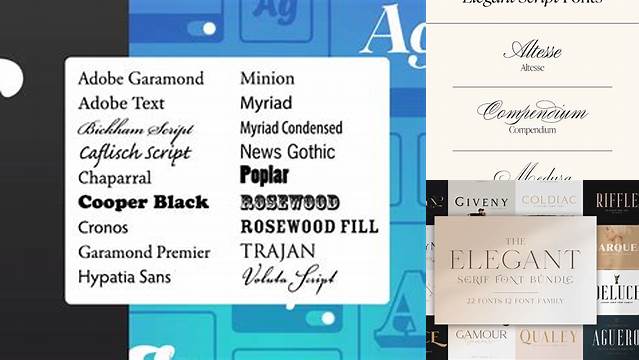
Elegant Fonts: A Guide To Adobe Fonts
Choosing the right font can make or break your design. When you're aiming for sophistication and class, elegant fonts are the way to go. And where better to find a vast collection of high-quality typefaces than Adobe Fonts? In this article, guys, we'll dive deep into the world of elegant fonts available on Adobe Fonts, exploring different styles, pairings, and how to use them effectively in your projects.
1. What Makes a Font Elegant?
Before we jump into specific examples, let's define what exactly makes a font elegant. Generally, elegant fonts possess a certain refinement and grace. They often feature delicate lines, graceful curves, and a sense of timelessness. Think about the fonts you see in high-end fashion magazines, luxury branding, or classic literature—those are the kinds of fonts we're talking about. These fonts often convey sophistication, quality, and a touch of luxury. Understanding these characteristics will help you better identify and select the perfect elegant font for your design needs.
2. Serif Fonts for Timeless Elegance
Serif fonts are often the first choice when seeking elegant fonts. Their small, decorative strokes (serifs) at the ends of letterforms add a classic and formal touch. Think Times New Roman or Garamond, but the world of serif fonts is so much broader! There are countless variations, each with its own unique personality. From the sharp, authoritative serifs of Didot to the softer, more humanist serifs of Caslon, you'll find a serif font to match almost any project that requires elegance. Using serif fonts strategically can elevate the perceived value and sophistication of your design, making them a staple for brands and projects aiming for a classic appeal. Using them in headings can draw the eye, while body text in a well-chosen serif can enhance readability and overall aesthetic appeal.
3. Sans-Serif Fonts: Modern Elegance
Sans-serif fonts, without serifs, offer a different kind of elegance: a more modern, minimalist aesthetic. While they might not have the traditional formality of serif fonts, sans-serif fonts can be incredibly sophisticated in their simplicity. Think clean lines, balanced proportions, and a sense of understated chic. Fonts like Helvetica, Futura, and Montserrat are all excellent examples of sans-serif fonts that can bring an element of modern elegance to your designs. The key here is balance. Pairing a clean sans-serif with a more ornate element can create a striking contrast that speaks volumes about your design's intent. The versatility of sans-serif fonts means they can be used across a wide array of projects, from web design to print, offering a seamless blend of functionality and style.
4. Script Fonts: The Flourish of Elegance
If you're looking for a font that exudes personality and flair, script fonts are your go-to choice. These fonts mimic handwriting, often featuring flowing strokes and decorative flourishes. However, with great power comes great responsibility! Script fonts can be tricky to use; overuse them, and your design can look cluttered or even illegible. But when used sparingly and thoughtfully, script fonts can add a touch of romance, luxury, and bespoke quality. Imagine using a script font for a wedding invitation or a high-end cosmetics brand – the effect can be stunning. The key to successfully integrating script fonts is to balance them with simpler fonts for readability and to ensure that the script's style complements the overall design aesthetic.
5. Display Fonts: Unique and Elegant Choices
Display fonts are designed to be eye-catching and make a statement. They often have unique and unusual characteristics, making them perfect for headlines, logos, and other prominent design elements. While not all display fonts are elegant, many offer a distinctive twist on traditional elegance. Think bold, geometric sans-serifs or serifs with exaggerated features. These fonts can add a touch of drama and personality to your designs while still maintaining an air of sophistication. It's crucial to consider the context when using display fonts; their bold nature means they are best reserved for prominent features in a design, where their unique characteristics can truly shine without overwhelming the overall composition.
6. Pairing Elegant Fonts for Impact
Choosing a single elegant font is only half the battle. To truly create a stunning design, you need to consider font pairings. A well-chosen font pairing can create visual harmony and hierarchy, making your design more engaging and readable. The classic rule of thumb is to pair a serif font with a sans-serif font, but don't be afraid to break the rules! Experiment with different combinations until you find something that resonates with your project's goals and aesthetic. For instance, a bold serif headline paired with a clean sans-serif body text can create a striking visual contrast while maintaining readability. The art of font pairing is about creating balance and visual interest, ensuring that the fonts complement each other without competing for attention.
7. Adobe Fonts: Your Elegant Font Library
Adobe Fonts is a treasure trove for designers seeking elegant fonts. With a vast library of high-quality typefaces, you're sure to find the perfect font for your project. The best part? If you're an Adobe Creative Cloud subscriber, you already have access to these fonts! Simply activate them within the Creative Cloud app, and they'll be available in all your design applications. This seamless integration makes Adobe Fonts an incredibly convenient and valuable resource. The extensive collection means you can explore a variety of styles and find unique fonts that perfectly align with your design vision, making Adobe Fonts an indispensable tool for any designer.
8. Elegant Serif Font Options on Adobe Fonts
Adobe Fonts boasts a stunning selection of serif fonts, perfect for adding a touch of timeless elegance to your designs. From classic typefaces like Garamond Premier Pro and Adobe Caslon Pro to more contemporary options like Playfair Display and Lora, the possibilities are endless. Each serif font has its unique characteristics, making it suitable for different applications. For instance, a font like Garamond might be ideal for body text in a book, while Playfair Display could be perfect for a headline or logo. The depth and breadth of the serif font collection on Adobe Fonts ensure that you can find the perfect typeface to convey sophistication and formality in your projects.
9. Sophisticated Sans-Serif Choices
For a modern and clean aesthetic, Adobe Fonts offers a wide range of sophisticated sans-serif options. Fonts like Montserrat, Open Sans, and Lato provide excellent readability and versatility, making them suitable for both web and print projects. These fonts are characterized by their clean lines and balanced letterforms, conveying a sense of contemporary elegance. They work particularly well in digital environments, where clarity and legibility are paramount. The beauty of sans-serif fonts lies in their simplicity, allowing them to be seamlessly integrated into various design styles, from minimalist to corporate, ensuring a polished and professional look.
10. Elegant Script Fonts on Adobe Fonts
Adobe Fonts has a beautiful collection of script fonts for adding a touch of personality and flair. Whether you're looking for a formal calligraphy style or a more casual handwritten feel, you'll find a script font to suit your needs. However, as we mentioned earlier, script fonts should be used judiciously. Think about using them for headings, invitations, or to add a personal touch to your branding. Some popular choices include Mrs Eaves, Zapfino, and Pacifico. When using script fonts, it's crucial to consider legibility and ensure that they complement the overall design without overpowering it; a subtle touch of script can often make the most significant impact.
11. Elegant Display Fonts to Make a Statement
When you need a font that commands attention, Adobe Fonts' selection of display fonts is your go-to. These fonts are designed to be eye-catching and unique, making them ideal for headlines, logos, and other prominent design elements. While elegance might not be the first word that comes to mind when you think of display fonts, many options can add a touch of sophistication with a twist. Fonts like Bebas Neue, Oswald, and Raleway offer a modern, geometric elegance that works well in various contexts. Display fonts are all about making an impact, and Adobe Fonts offers a diverse range of styles to ensure your message is conveyed with both clarity and flair.
12. Font Weights and Styles for Elegance
The elegance of a font isn't just about its typeface; it's also about how you use its various weights and styles. A single font family often includes multiple weights (light, regular, bold, etc.) and styles (italic, condensed, etc.). Using these variations effectively can add depth and sophistication to your designs. For example, a light weight might convey delicacy, while a bold weight adds emphasis. Using italic styles can provide contrast and visual interest. Experimenting with font weights and styles is key to unlocking the full potential of an elegant font, allowing you to create a nuanced and impactful visual hierarchy.
13. Kerning and Letter Spacing for Perfect Elegance
Kerning and letter spacing are often overlooked, but they play a crucial role in the overall elegance of your typography. Kerning refers to the space between individual letters, while letter spacing refers to the overall space between all letters in a word or phrase. Adjusting these settings can significantly impact readability and visual appeal. Too little space, and your text will look cramped; too much space, and it will appear disjointed. Fine-tuning kerning and letter spacing is like the finishing touch on a masterpiece, ensuring that your text is not only beautiful but also effortlessly readable.
14. Line Height and Readability
Line height, or leading, is the vertical space between lines of text. Proper line height is crucial for readability, especially in longer blocks of text. If the lines are too close together, the text can feel dense and overwhelming. If they're too far apart, the text can feel disjointed. The ideal line height will vary depending on the font and the amount of text, but a good starting point is around 1.5 times the font size. Paying attention to line height ensures that your elegant font is not only visually appealing but also comfortable to read, enhancing the overall user experience.
15. Color and Contrast for Elegant Typography
The colors you choose for your typography can significantly impact its perceived elegance. High contrast (e.g., black text on a white background) is often the most readable, but softer contrasts can convey a more subtle elegance. Think about using muted tones or shades of the same color to create a sophisticated look. Experiment with different color combinations to find what works best for your design. The key is to ensure that your text is both readable and visually harmonious, creating a balance that enhances the elegance of your chosen font.
16. Using Elegant Fonts in Logos
Your logo is the face of your brand, so choosing an elegant font is crucial if you want to convey sophistication and quality. Serif fonts are often a popular choice for logos, as they evoke a sense of tradition and authority. However, sans-serif and script fonts can also work well, depending on your brand's personality. Consider the overall message you want to send and choose a font that aligns with your brand values. An elegant font in a logo can instantly elevate a brand's perception, communicating professionalism and attention to detail.
17. Elegant Fonts for Websites
Choosing the right font for your website is essential for creating a positive user experience. Elegant fonts can add a touch of sophistication to your site, but readability should always be a top priority. Sans-serif fonts are generally a good choice for body text on websites, as they tend to be more legible on screens. Serif fonts can work well for headings and other prominent elements. Remember to test your font choices on different devices and browsers to ensure they look their best. A well-chosen font can make your website more visually appealing and engaging, encouraging visitors to stay longer and explore more.
18. Elegant Fonts for Print Materials
Print materials offer a unique opportunity to showcase the beauty of elegant fonts. Whether you're designing a brochure, a business card, or a wedding invitation, the right font can make a lasting impression. Serif fonts often shine in print, as their fine details are rendered beautifully on paper. Script fonts can also add a touch of luxury and personalization. Consider the paper stock and printing method when choosing a font, as these factors can affect how the font appears. The tactile nature of print materials allows for a deeper appreciation of font design, making it a key element in creating high-quality and impactful printed pieces.
19. Pairing Elegant Fonts with Images
The images you use in your design can either enhance or detract from the elegance of your typography. Choose images that complement the overall aesthetic and style of your fonts. High-quality, professional photographs often work well with elegant fonts, as do minimalist illustrations. Avoid using images that are cluttered or visually distracting, as they can overwhelm the text. The goal is to create a harmonious visual balance between text and images, ensuring that each element enhances the other.
20. The Psychology of Elegant Fonts
Fonts, like colors, have psychological associations. Elegant fonts often evoke feelings of sophistication, luxury, and tradition. Serif fonts, in particular, can convey a sense of authority and trustworthiness. Sans-serif fonts, on the other hand, may feel more modern and approachable. Consider the psychological impact of your font choices and select fonts that align with the message you want to send. Understanding the psychology of fonts allows you to communicate not just words, but also emotions and values, strengthening your brand's message.
21. Elegant Fonts for Different Industries
The best elegant font for your project will depend on the industry you're in. A law firm, for example, might choose a classic serif font to convey a sense of tradition and authority. A fashion brand, on the other hand, might opt for a more modern sans-serif or a script font to convey style and sophistication. Consider your target audience and the overall brand message when making your font selection. Tailoring your font choices to the specific needs and expectations of your industry ensures that your typography effectively communicates your brand's identity and values.
22. Trends in Elegant Font Design
Font design, like any creative field, is subject to trends. While classic elegant fonts are always a safe bet, it's also worth exploring more contemporary options. Some current trends in elegant font design include geometric sans-serifs, display serifs with unique details, and modern interpretations of classic typefaces. Staying up-to-date on font trends can help you keep your designs fresh and relevant. However, it's crucial to balance trendiness with timelessness, ensuring that your font choices remain effective and appropriate for your brand over time.
23. Avoiding Common Mistakes with Elegant Fonts
Using elegant fonts effectively requires careful consideration. One common mistake is overusing script fonts, which can make your design cluttered and hard to read. Another is choosing fonts that are too similar, which can create a visual disconnect. Always prioritize readability and make sure your font choices complement each other. By avoiding these common pitfalls, you can ensure that your elegant fonts enhance your design rather than detract from it.
24. Finding Inspiration for Elegant Font Combinations
Stuck on which elegant fonts to choose? Look for inspiration in existing designs. Browse magazines, websites, and other design materials to see how professionals use fonts. Pay attention to font pairings and how different fonts work together. Online resources like Pinterest and Behance can also be great sources of inspiration. By studying successful font combinations, you can gain a better understanding of what works well and develop your own unique style.
25. Testing Your Elegant Font Choices
Before finalizing your font choices, it's crucial to test them in different contexts. See how they look on various devices and browsers, and print them out to see how they appear on paper. Ask for feedback from others to get a fresh perspective. Testing your fonts will help you identify any potential issues and ensure that your final design is polished and professional. Thorough testing is a critical step in the design process, ensuring that your elegant fonts effectively communicate your message across all platforms and formats.
26. The Future of Elegant Fonts
The world of font design is constantly evolving. New typefaces are created every day, and designers are always pushing the boundaries of what's possible. The future of elegant fonts is likely to see a continued blending of classic and contemporary styles, with a focus on versatility and readability. As technology advances, we can also expect to see more dynamic and interactive fonts. Staying curious and open to new possibilities will help you stay ahead of the curve and create truly innovative designs.
27. Licensing and Usage Rights for Adobe Fonts
When using Adobe Fonts, it's essential to understand the licensing and usage rights. Most Adobe Fonts are licensed for both personal and commercial use, but there may be some restrictions. Be sure to review the license agreement for each font to ensure you're using it correctly. Pay particular attention to rules about embedding fonts in documents and using them in web projects. Understanding font licensing is a critical aspect of professional design practice, ensuring that you respect the intellectual property rights of type designers and avoid potential legal issues.
28. Managing Your Adobe Fonts Library
As you explore Adobe Fonts, you'll likely accumulate a large library of typefaces. Managing your font library effectively is crucial for staying organized and efficient. Use the Adobe Creative Cloud app to activate and deactivate fonts as needed. You can also create font sets to group fonts by project or style. A well-organized font library allows you to quickly find the perfect typeface for any project, streamlining your workflow and boosting your productivity.
29. Alternative Resources for Elegant Fonts
While Adobe Fonts is a fantastic resource, it's not the only option for finding elegant fonts. Many other websites and foundries offer high-quality typefaces. Some popular alternatives include Google Fonts, MyFonts, and Fontspring. Each resource has its strengths and weaknesses, so it's worth exploring different options to find the best fonts for your needs. Diversifying your font resources allows you to access a wider range of styles and potentially discover unique typefaces that perfectly align with your design vision.
30. Mastering Elegant Typography: A Conclusion
Choosing and using elegant fonts effectively is a skill that takes time and practice to master. But with a little knowledge and experimentation, you can create stunning designs that convey sophistication and style. Remember to consider the context, the message you want to send, and your target audience when making your font choices. And don't be afraid to break the rules and experiment with different combinations. Happy designing, guys!